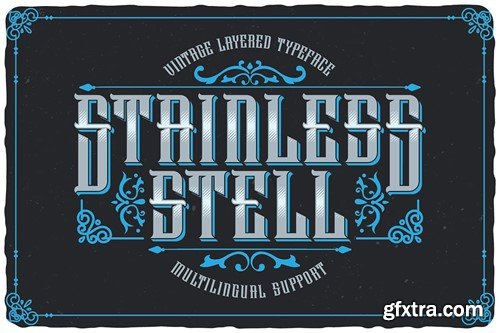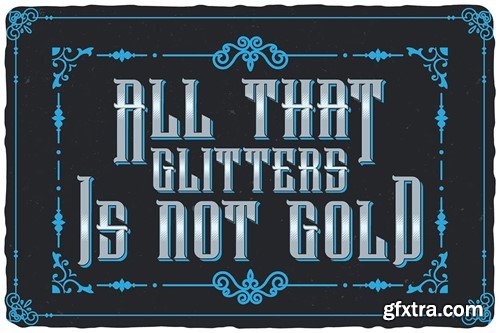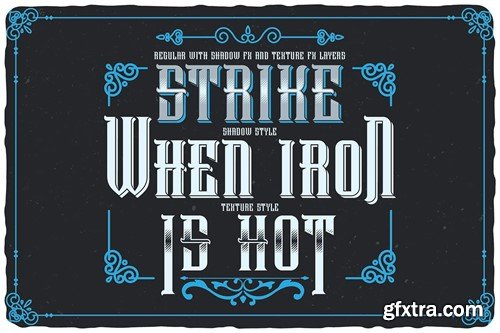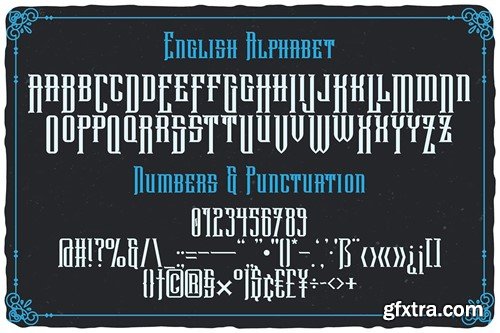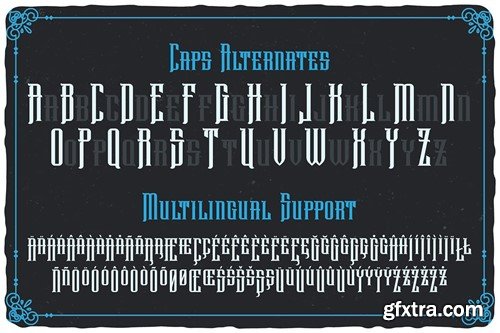
不锈钢复古叠加字体 NN299CX
Stainless Steel Vintage Layered Font NN299CX
Stainless Steel Vintage Layered Font
Unique, blackletter, vintage, retro, sharp & condensed serif font. Comes with multilingual support & alternate characters - great for your new logo or branding project.
• Multilingual support & alternate characters
• Great for retro or vintage style branding projects